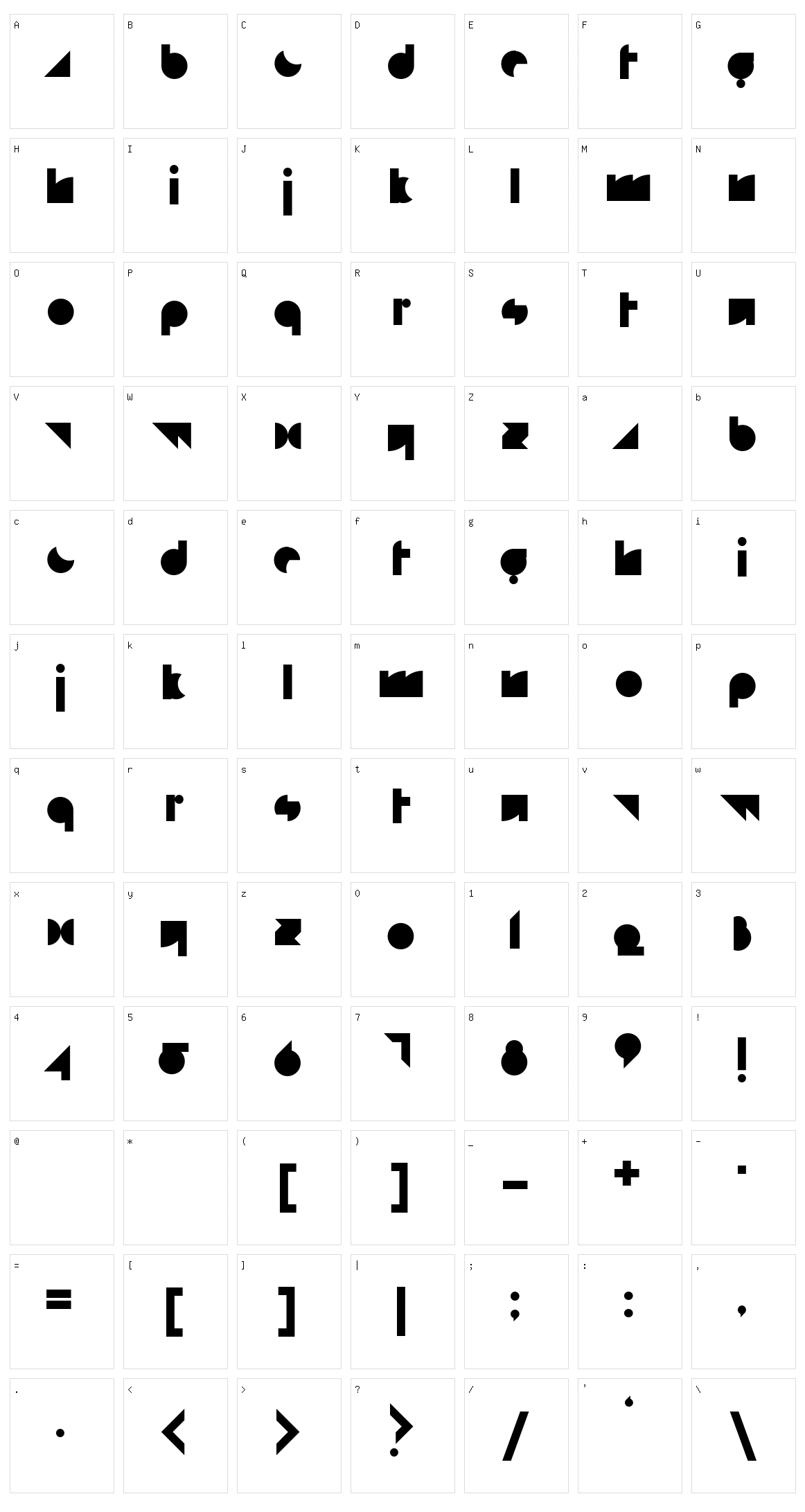
The free font White Rabbit is carefully designed by alice.creative., showcasing a thoughtful balance of creativity and usability and falls under the Retro font style. When you download the ZIP file, it contains only 8.05 KB of font files, making it lightweight and quick to download. Please review the license details below to understand permitted usage and distribution rights. If license information is not available, we recommend using this font for personal projects only or contacting the author directly for commercial usage permissions.